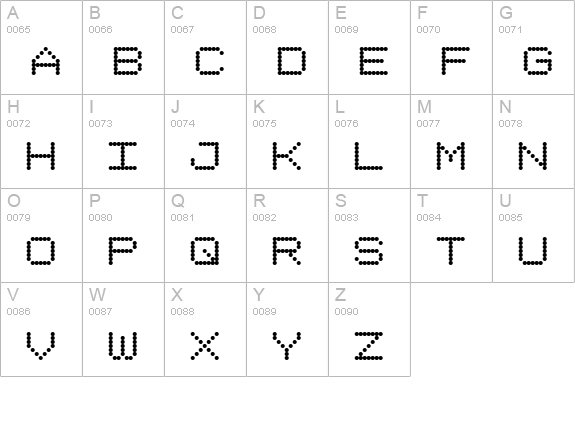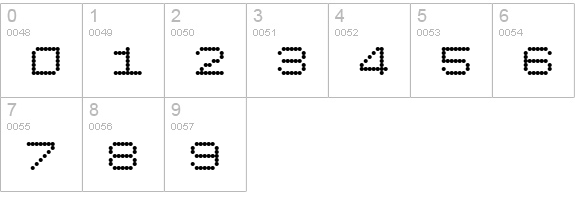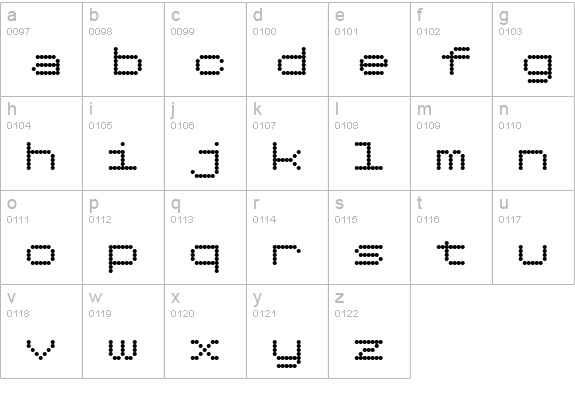
Dotimatrix 7 Font Details
Dotimatrix 7 font is a modern and stylish typeface that perfectly combines the classic feel of dot matrix style with a contemporary twist. With its clean lines and sharp edges, this font exudes a sense of sophistication and professionalism. The unique design of Dotimatrix 7 font makes it ideal for a wide range of projects, from branding and logos to posters and websites. The best part? Dotimatrix 7 font is completely free to download at FontsMarket.com! Whether you're a designer looking to add a fresh touch to your creations or simply want to experiment with a new font style, Dotimatrix 7 font is the perfect choice. Download it today and unleash your creativity with this versatile and eye-catching typeface.